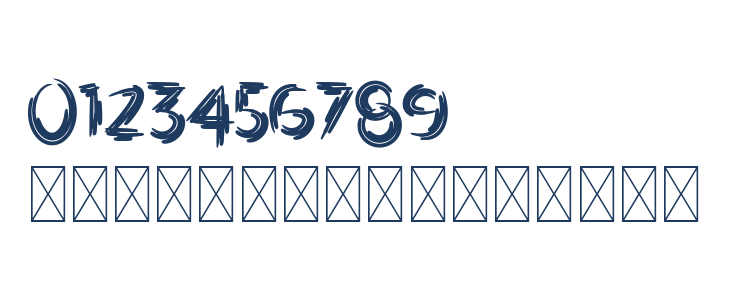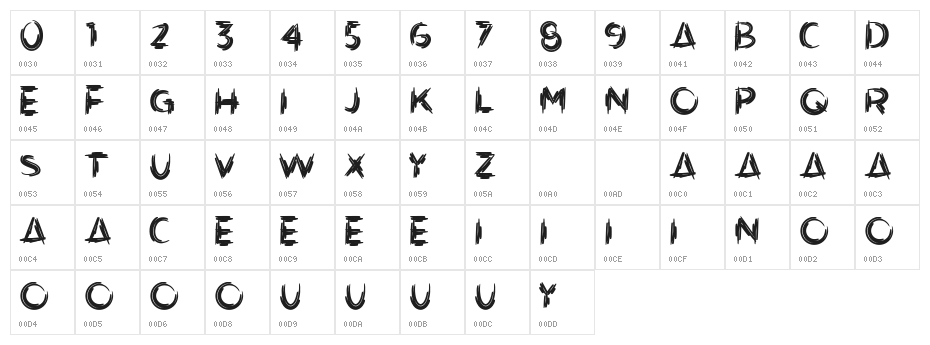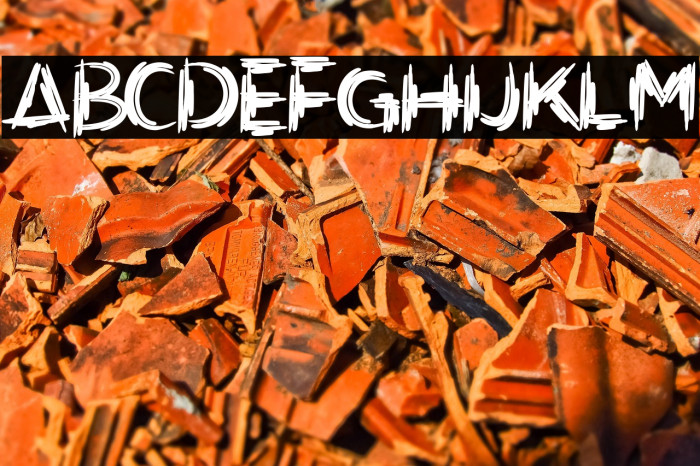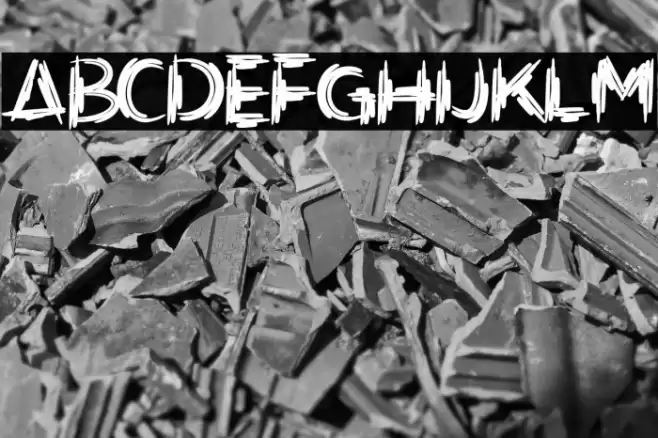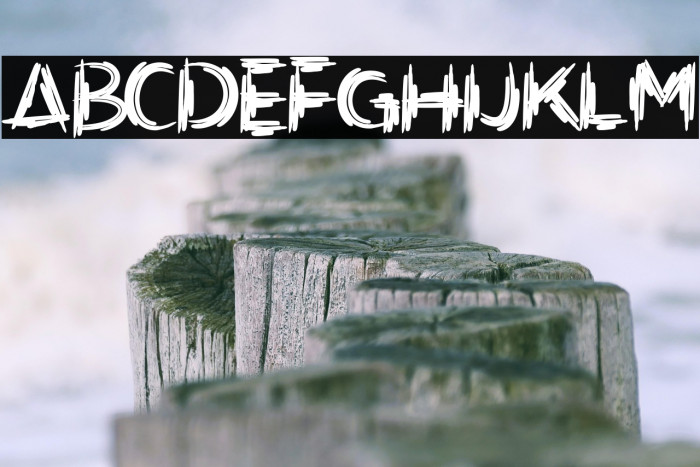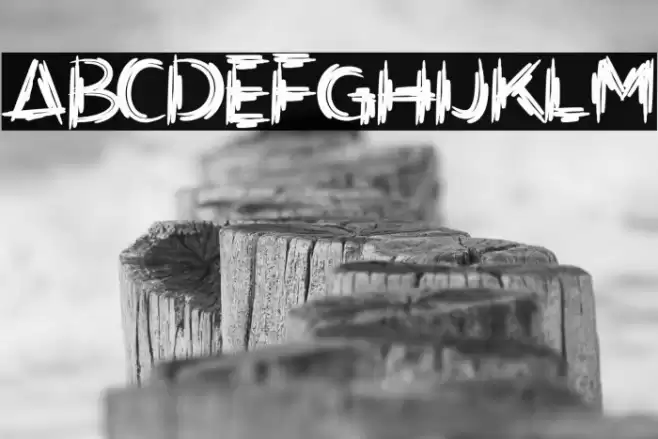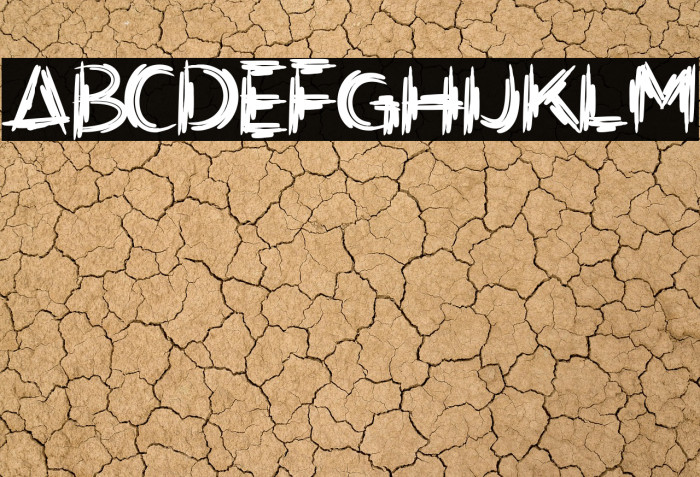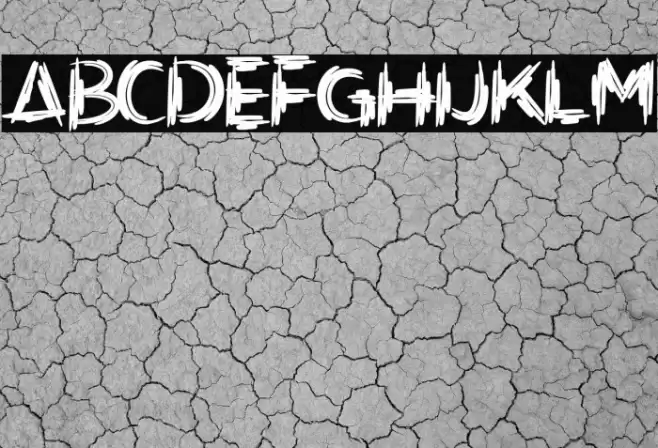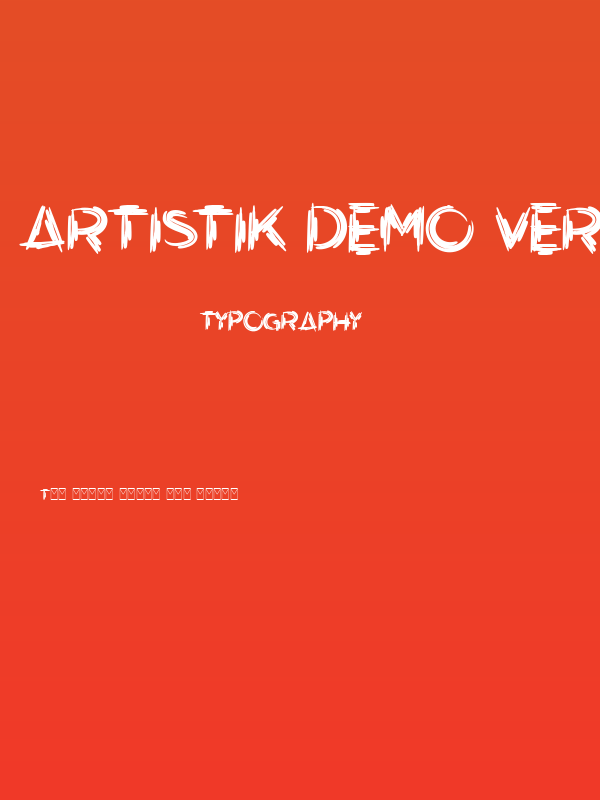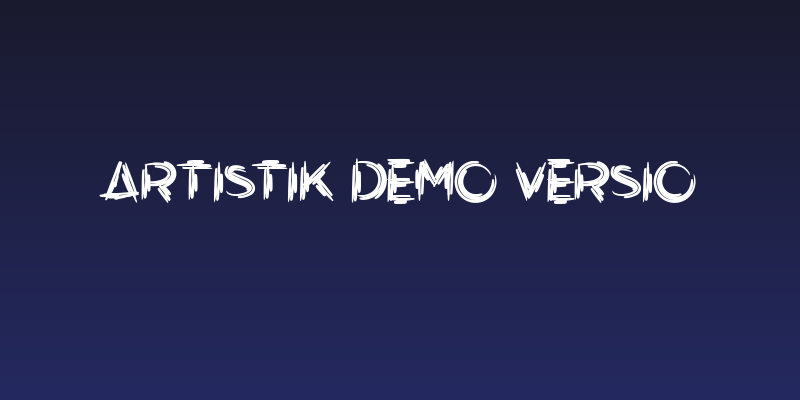
Artistik Demo Versio Font
Artistik Demo Versio Description
This font features a bold, artistic style with a hand-drawn appearance. The characters are dynamic and energetic, with irregular strokes that give a sense of movement and creativity. The uppercase and lowercase letters maintain a consistent style, with exaggerated curves and sharp angles. Numbers and special characters follow the same artistic theme, making the font suitable for creative and expressive projects. The overall design is eye-catching and unique, perfect for making a statement.
| Overall Style | Artistic, Creative |
| Proposed Projects | Ideal for posters, album covers, graffiti art, and creative branding projects. |